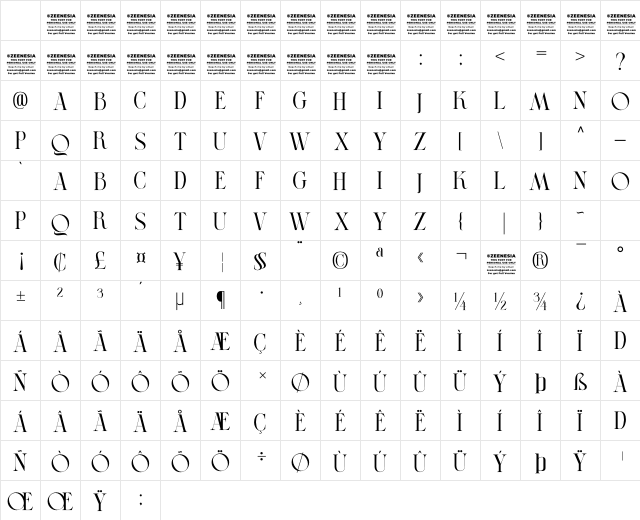
BRANCH - For Personal Use Only Regular Free Font
BRANCH - For Personal Use Only Regular
Design Context for BRANCH - For Personal Use Only
BRANCH - For Personal Use Only is a composed and adaptable typeface that performs quietly and consistently across a wide range of design contexts.